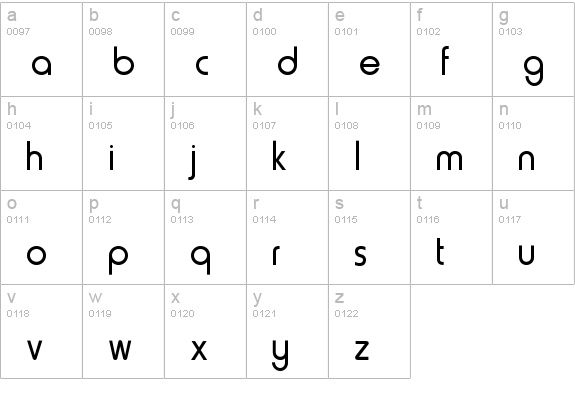
HarryPlain Font Details
HarryPlain font is a stunningly versatile typeface that embodies simplicity and elegance. With its clean lines and classic appeal, this font is perfect for a wide range of design projects, from professional documents to creative artworks. One of the most appealing aspects of HarryPlain font is that it is freely available to download at FontsMarket.com. This means that designers, artists, and anyone in need of a reliable and visually appealing font can access it without any cost. The availability of this font for free ensures that creativity knows no bounds, allowing users to explore their imagination and create captivating designs without any financial constraints. The HarryPlain font exudes a timeless charm that is both timeless and contemporary. Its simplicity makes it a perfect choice for various design applications, including branding, logos, headlines, posters, invitations, and much more. The well-balanced letterforms and easy readability make this font a go-to choice for both print and digital media. With its extensive character set, HarryPlain font offers support for multiple languages, making it accessible and inclusive for users from all around the world. Whether you are designing a website, crafting a brochure, or creating a social media post, this font ensures that your message is conveyed with clarity and style. The HarryPlain font is a true gem for designers and typographers alike. Its versatility, elegance, and free availability make it an essential addition to any font library. So, why wait? Download the HarryPlain font today from FontsMarket.com and embark on a creative journey that knows no limits.